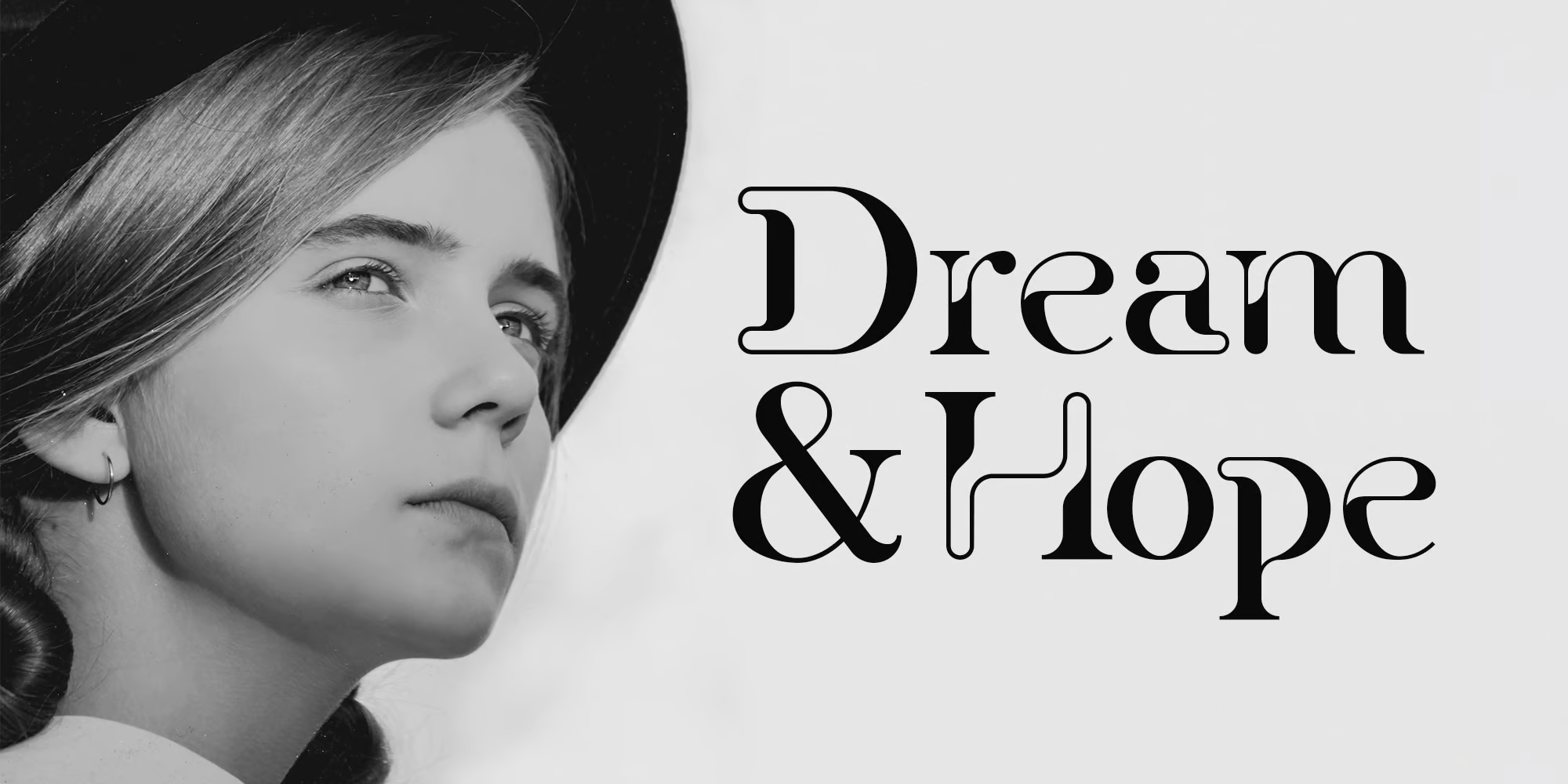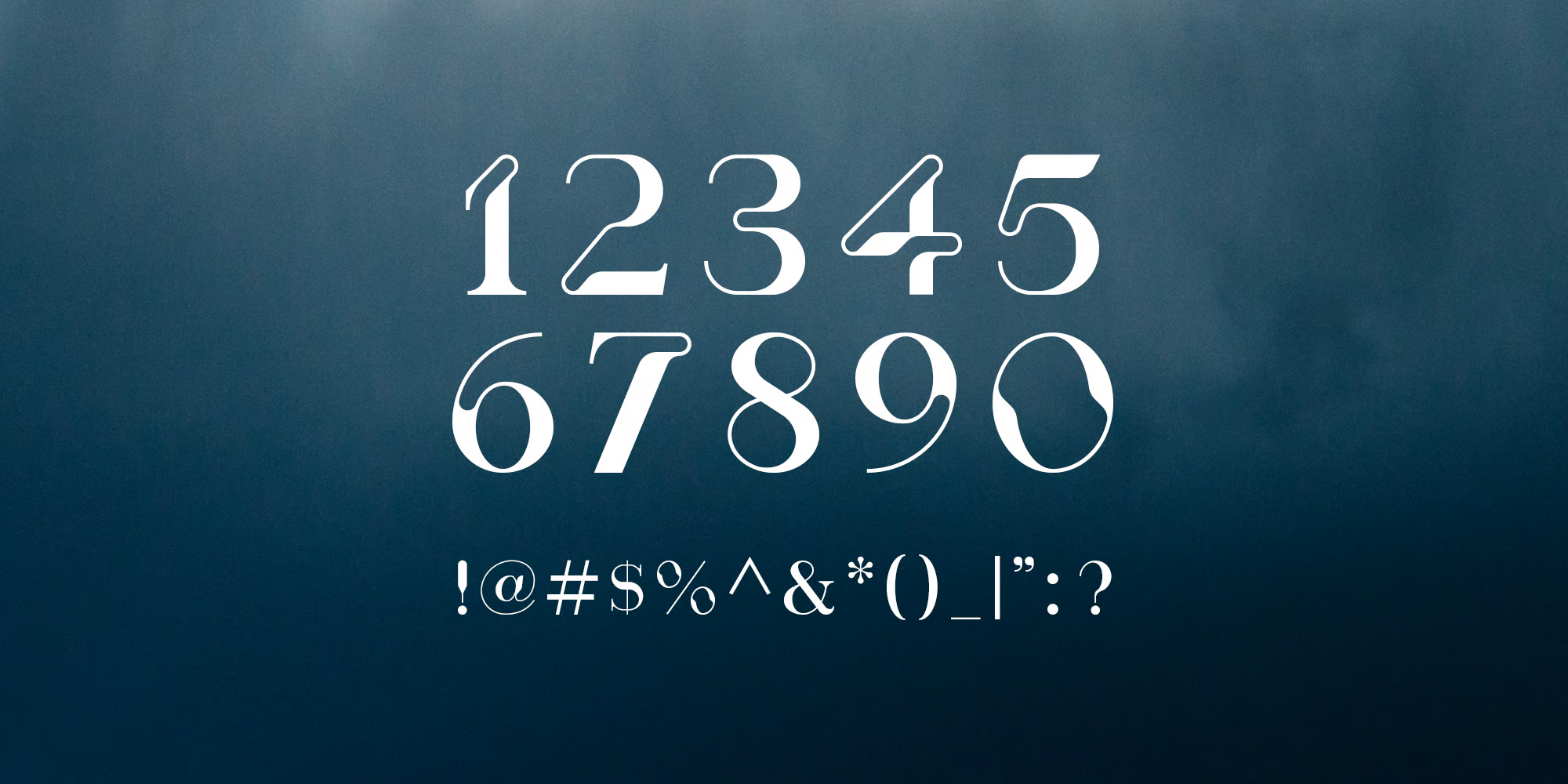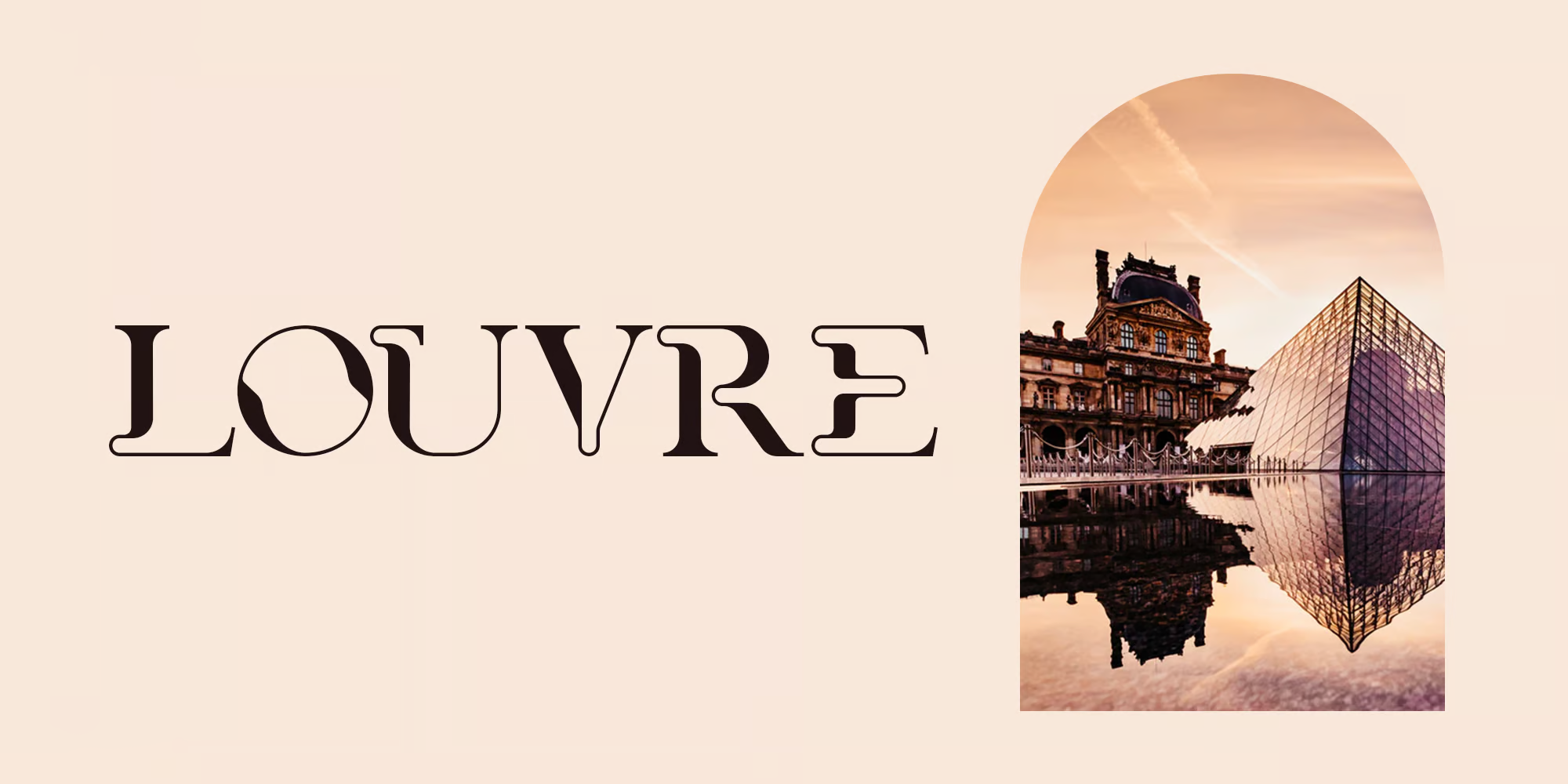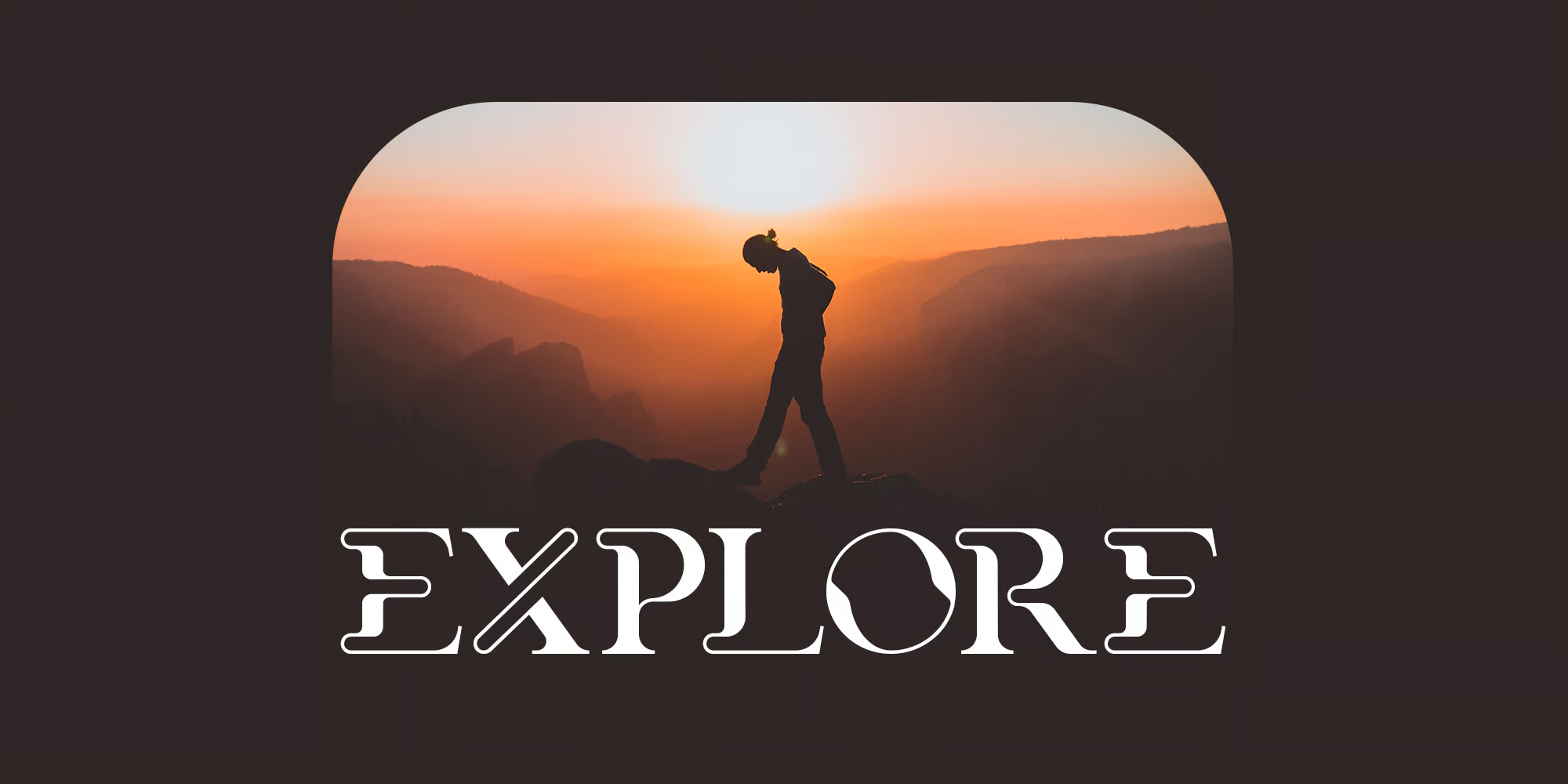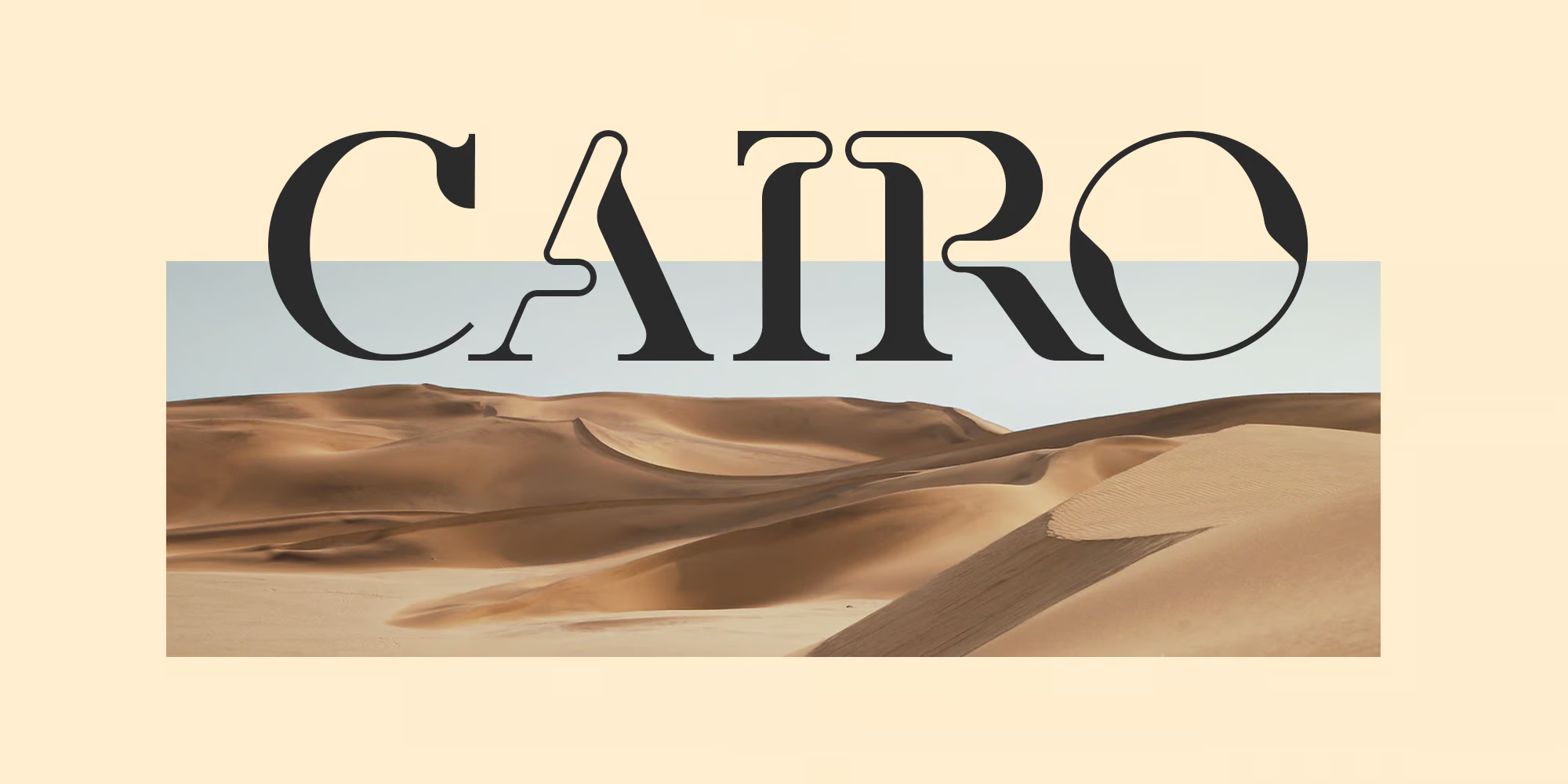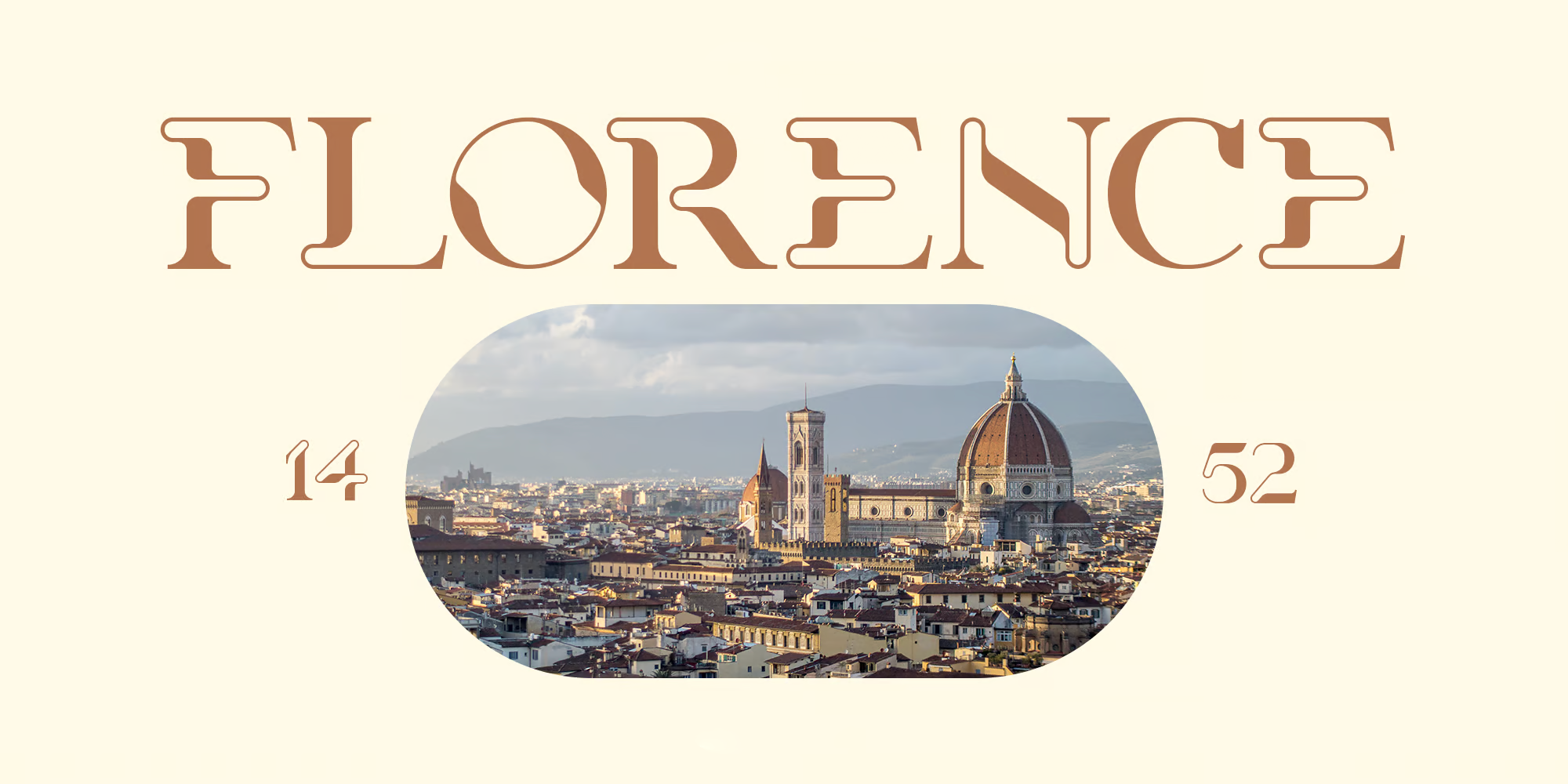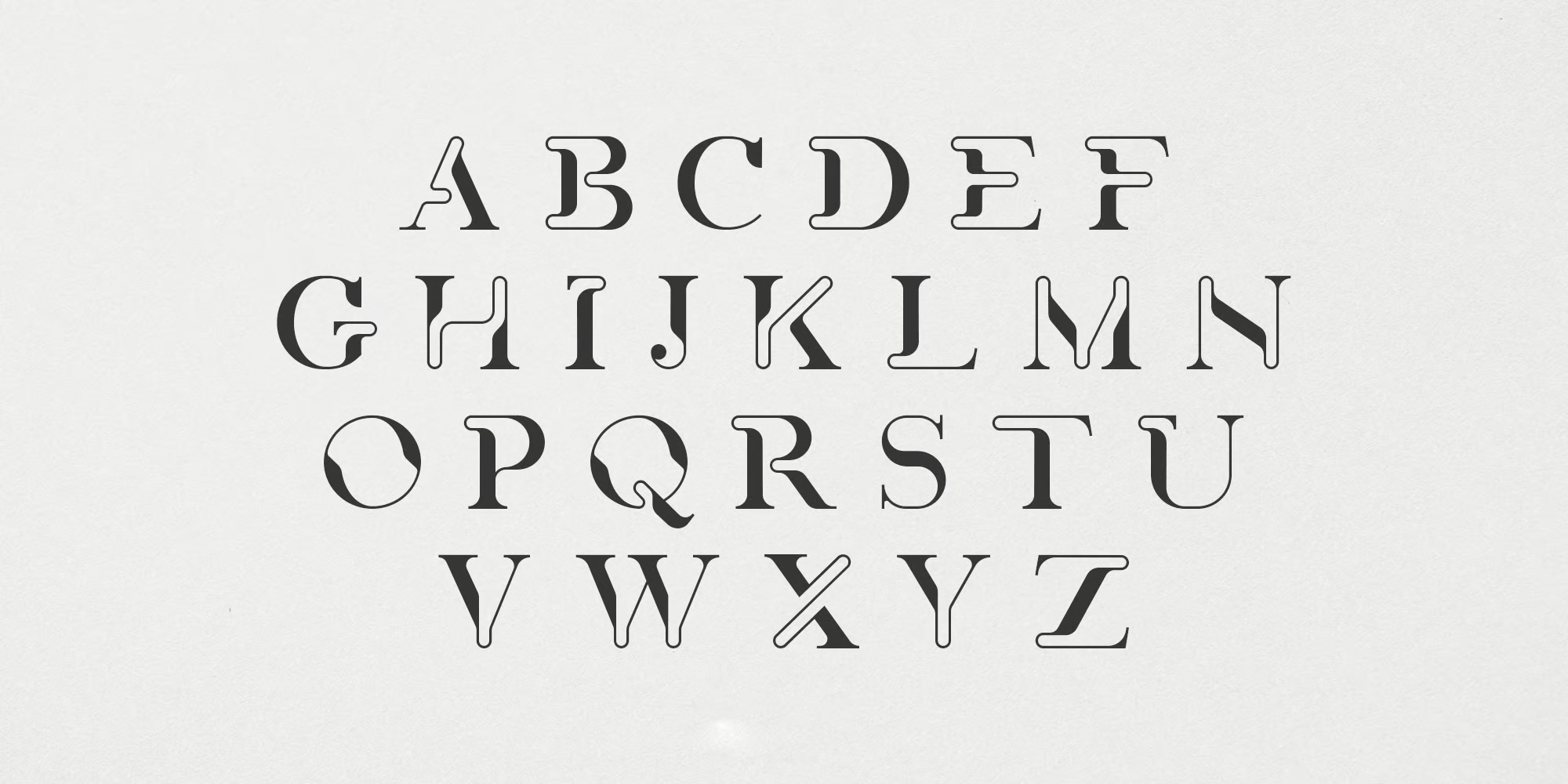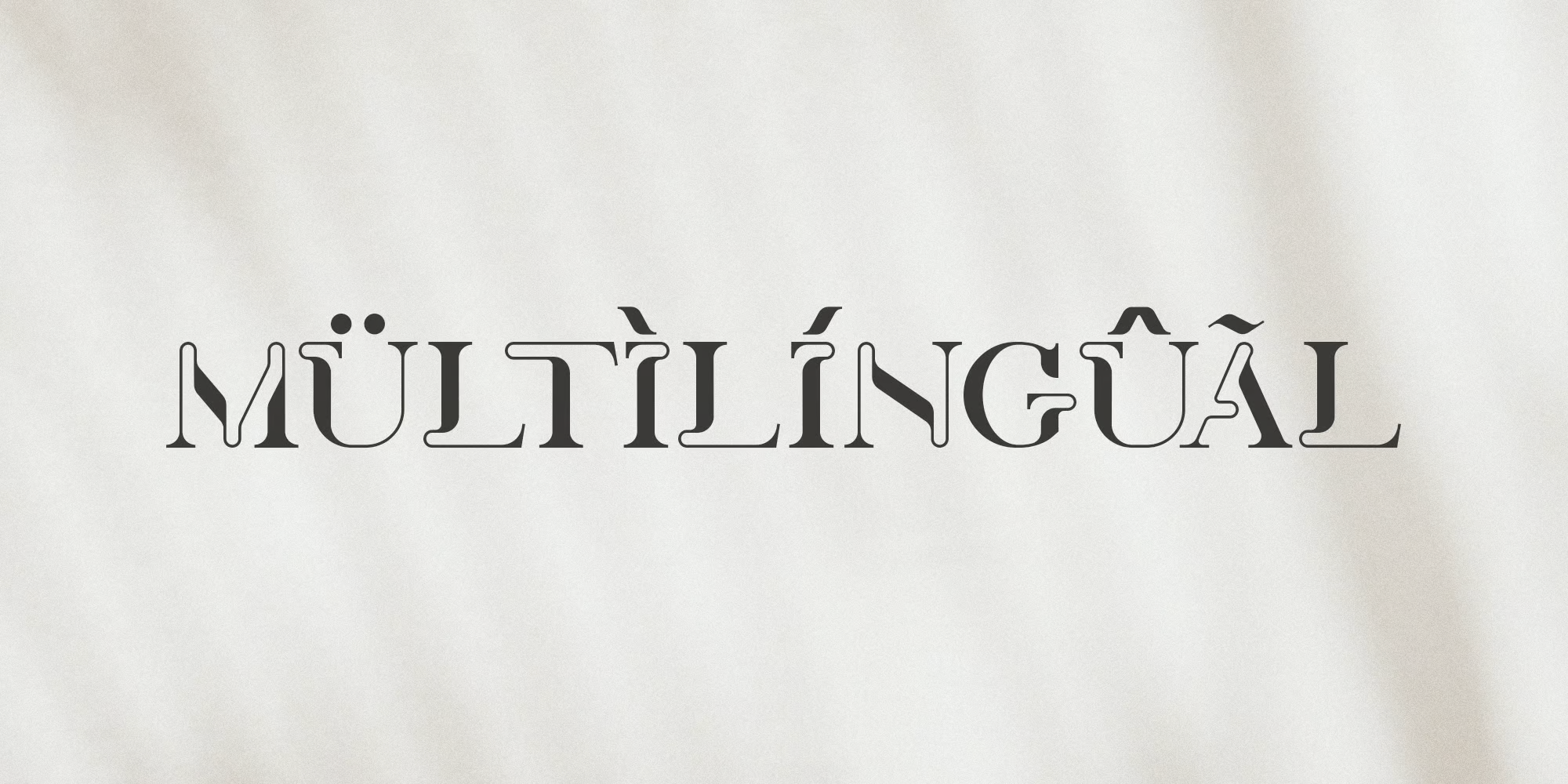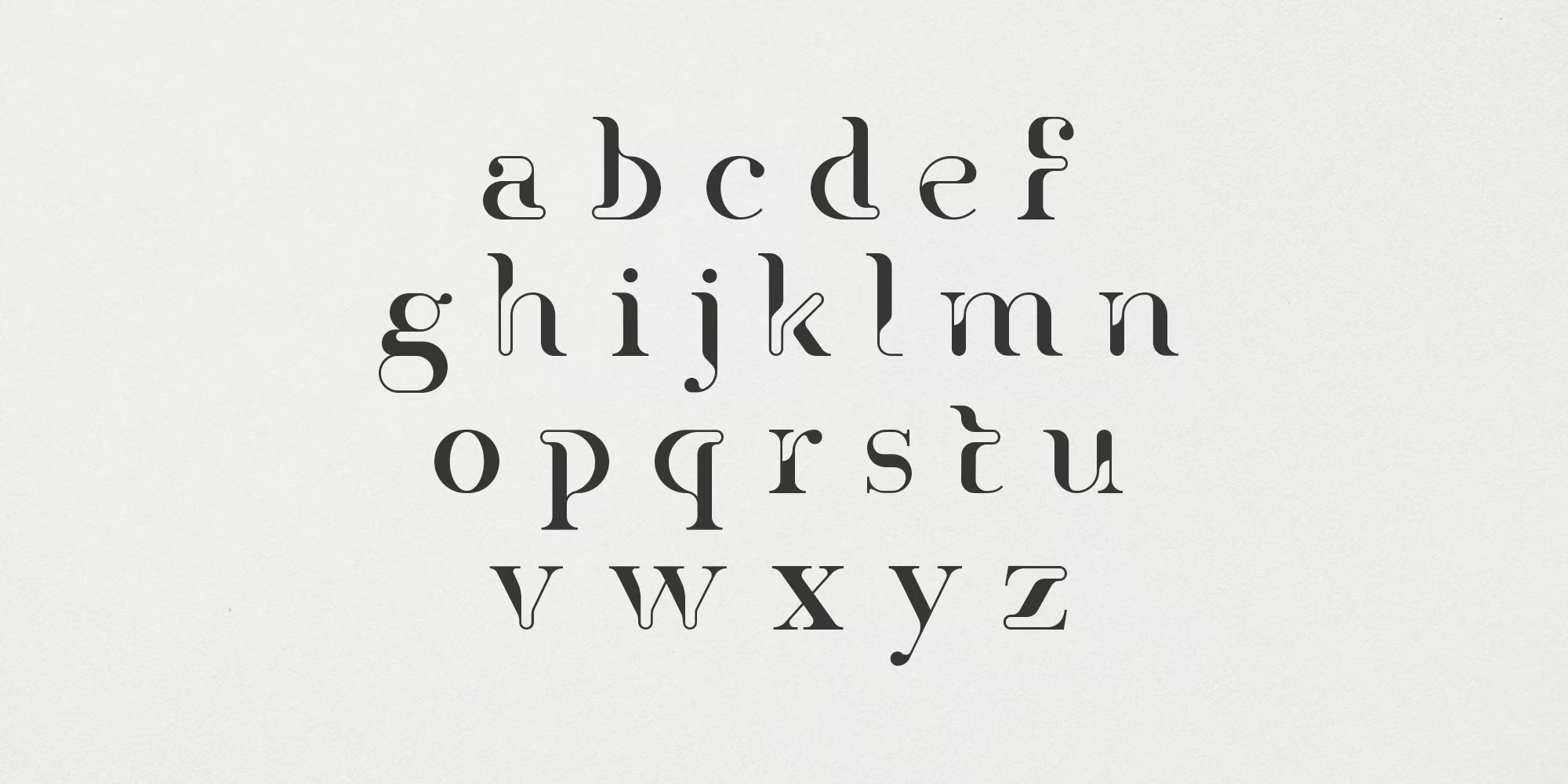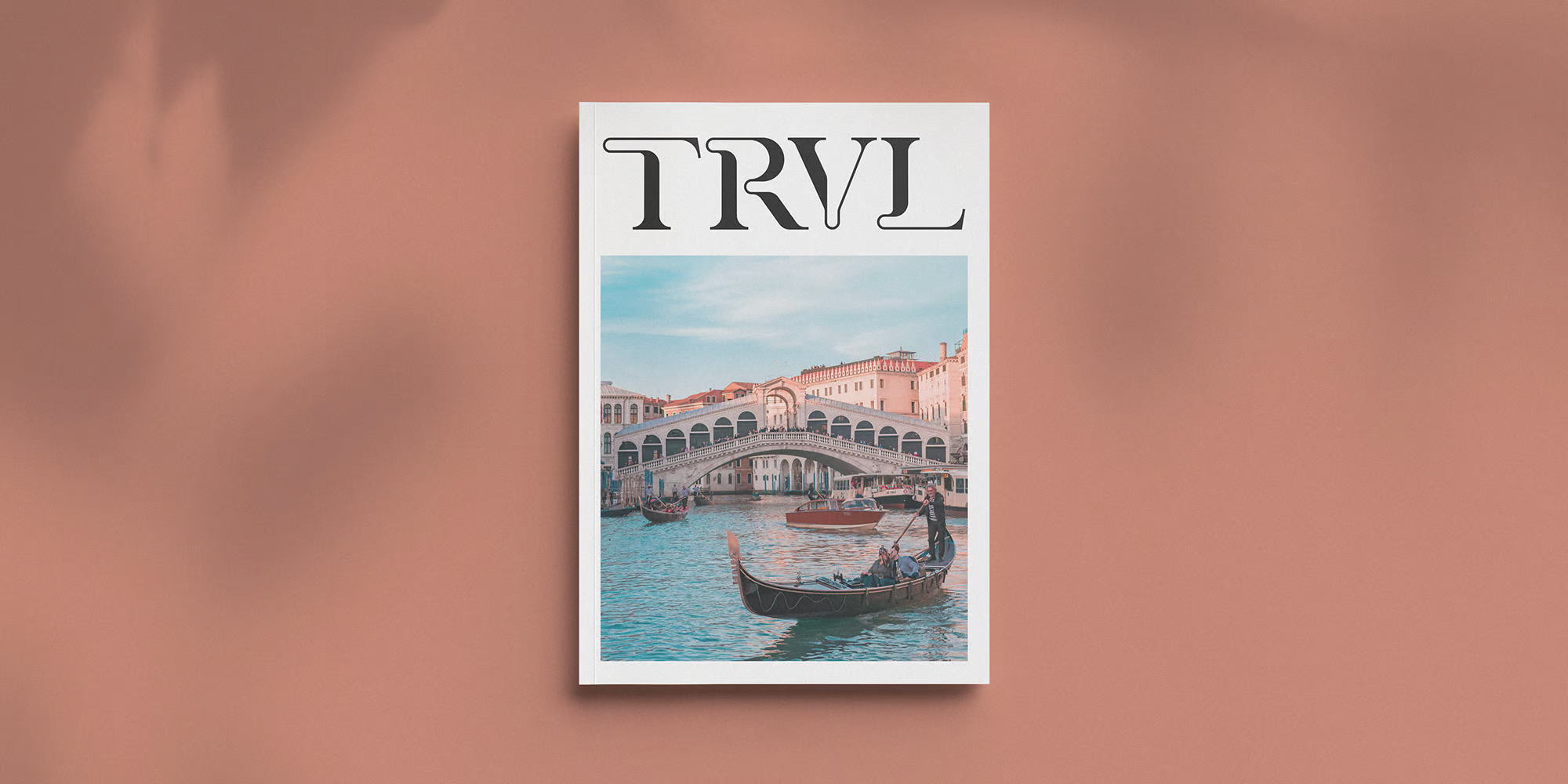
Mahezty
Mahezty is a modern, bold and fashionable serif display font. This font is imposing and features uniquely shaped letters, and as a result, it will easily match a wide range of creations that require a distinct touch.
Mahezty is perfect choice for people looking for modern, minimalist, elegant, clean, beauty design styles.